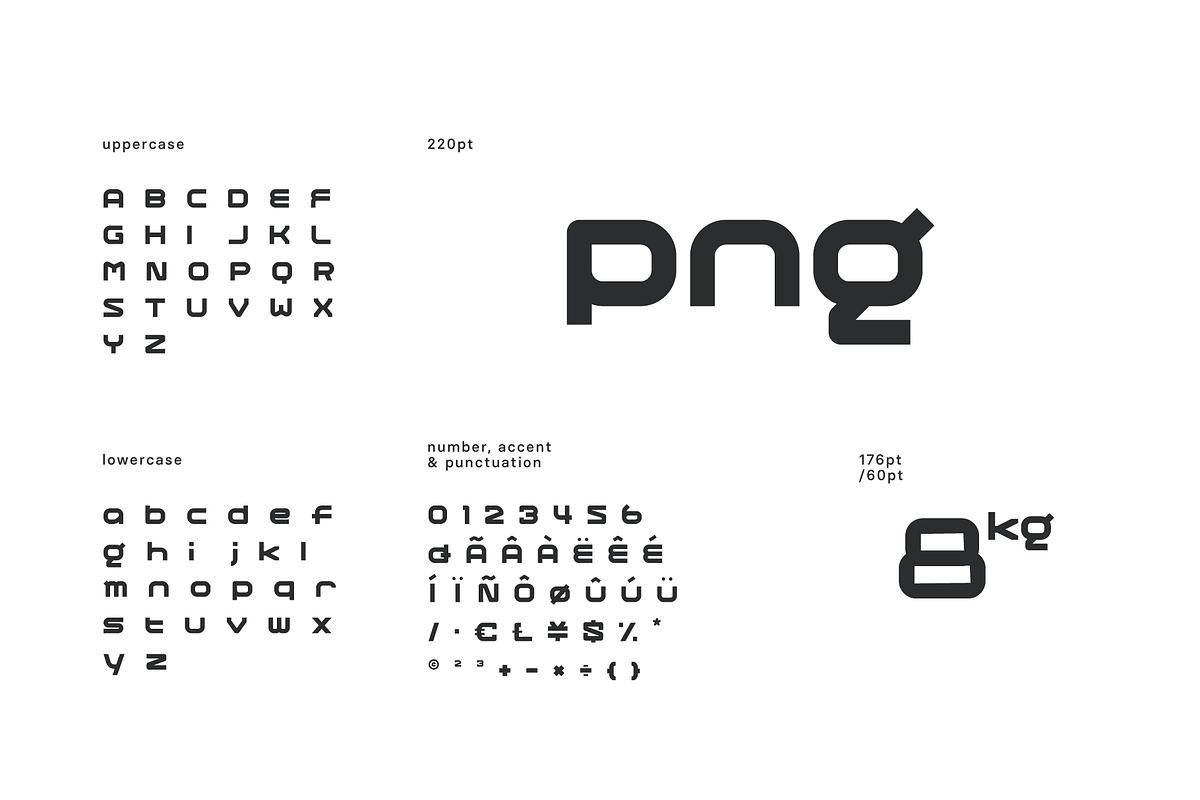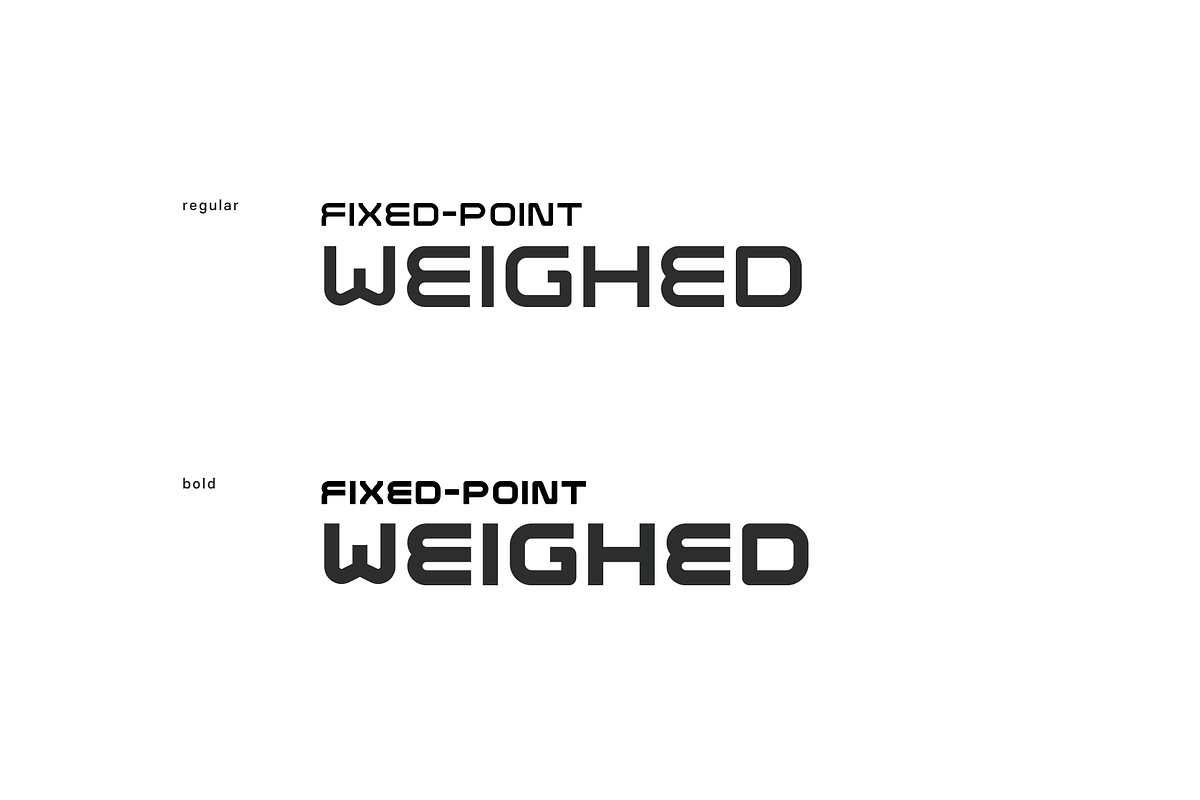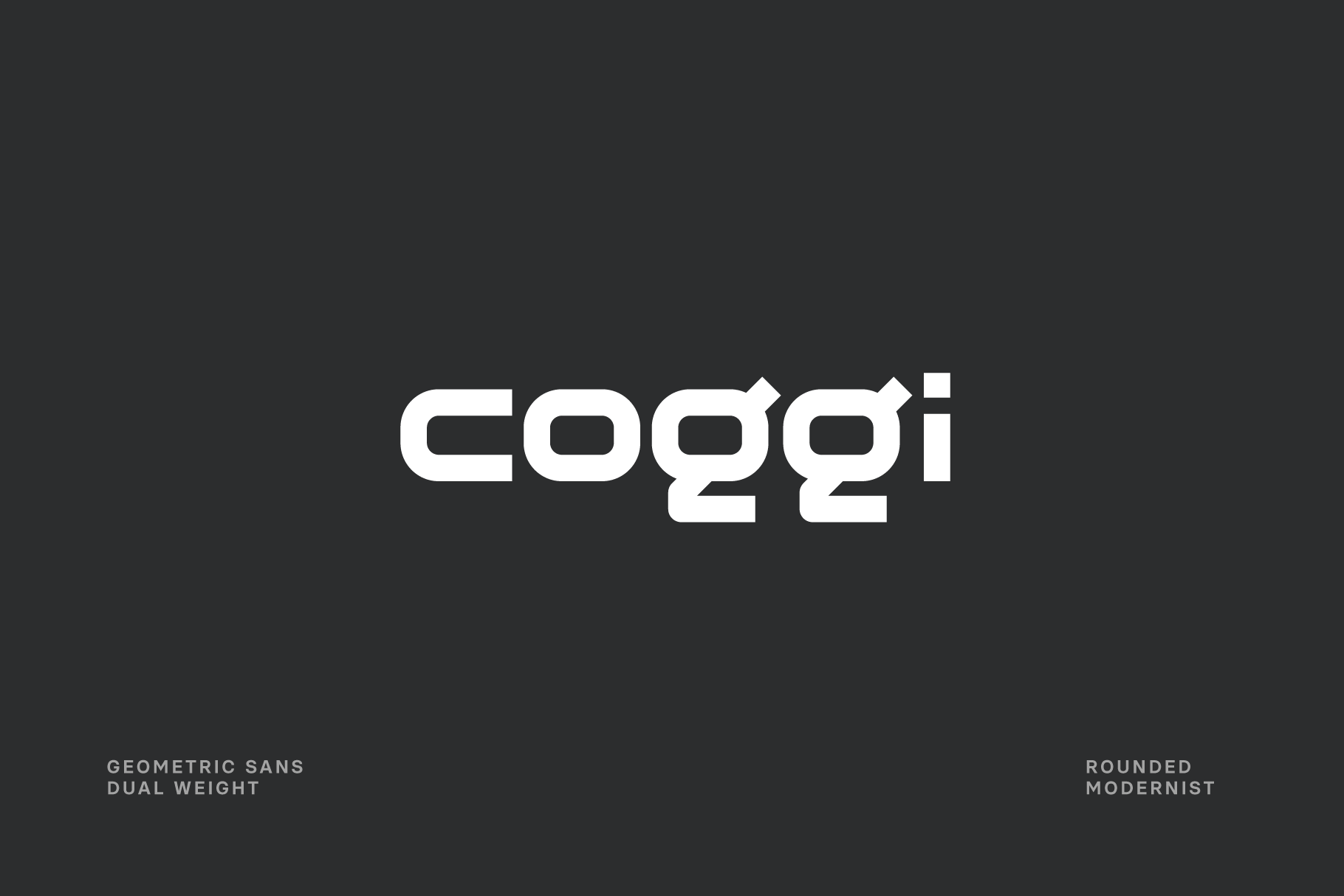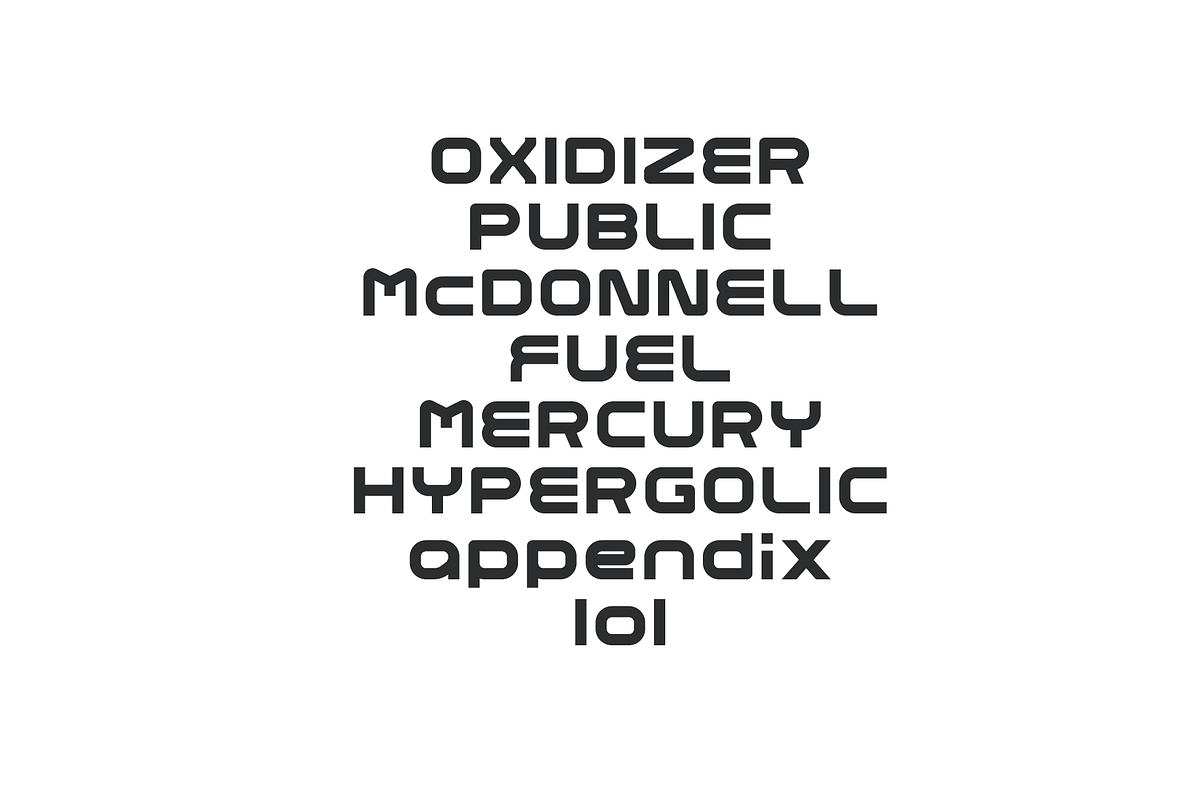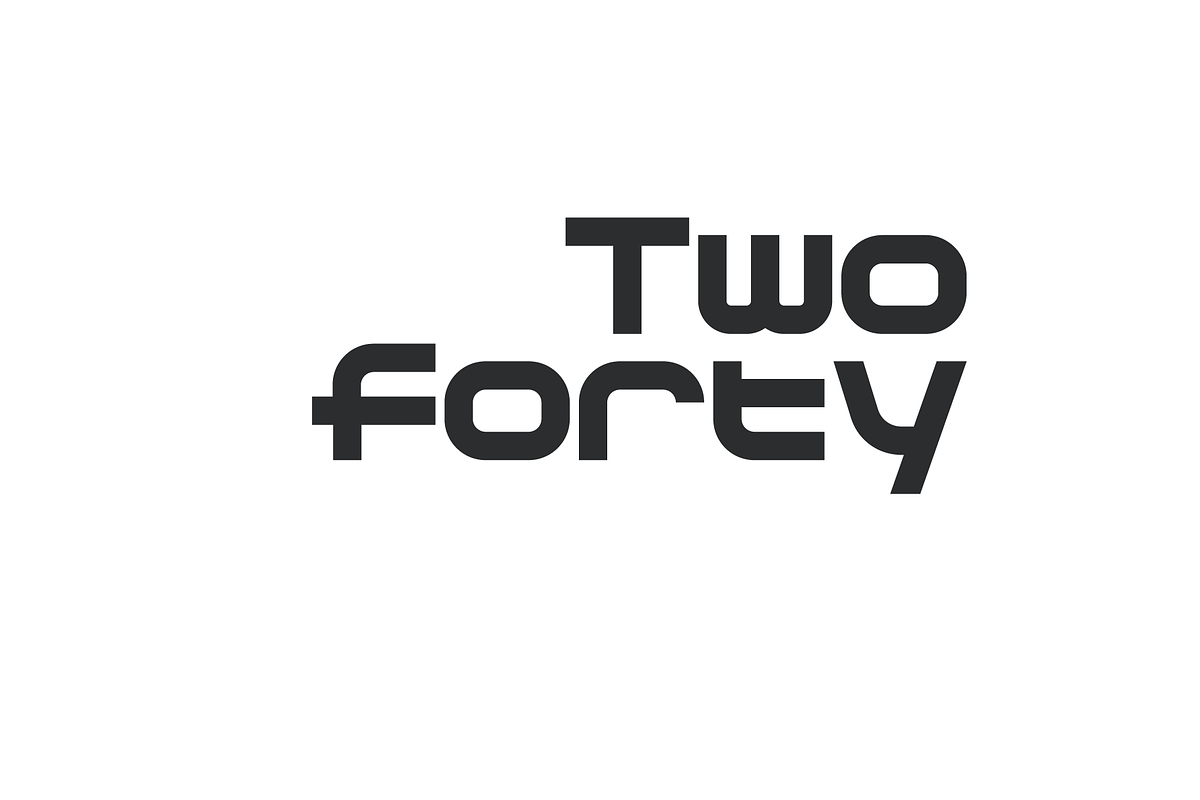
Coggi Sans Font
Coggi is a dual weight rounded and mono linear sans apt for headline, editorial, branding, packaging, printed materials and typographic applications.